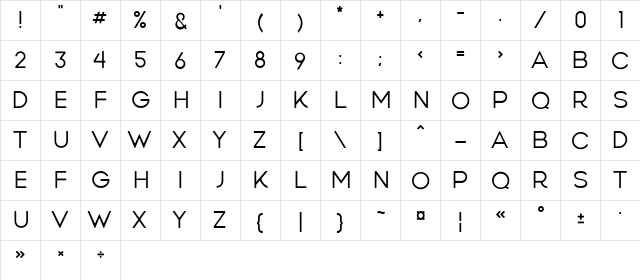
Wandery Free Regular
| Foundry | Pratama Yudha 2020 |
| Designer | Pratama Yudha |
Design Context for Wandery Free Typeface
Wandery Free offers clean, dependable letterforms without strong stylistic allegiance, making it a practical choice for designers who need flexibility.